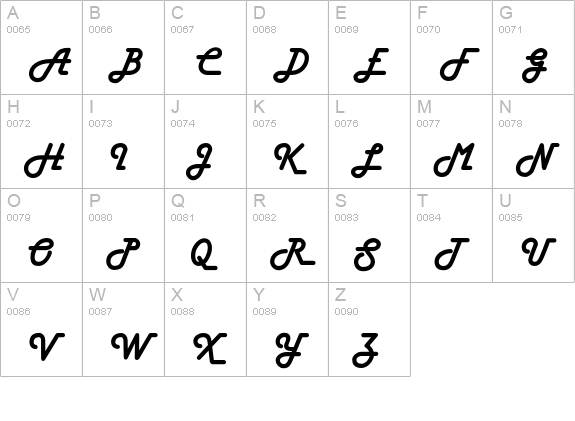
Flynn Font Details
Flynn font is a beautifully crafted typeface that exudes sophistication and elegance. Its sleek lines and modern design make it perfect for a wide range of projects, from branding to editorial design. The Flynn font is versatile and can be used for both headers and body text, adding a touch of refinement to any project. What sets Flynn font apart is that it is not only visually stunning but also free to download. This means that designers and creatives can easily access this high-quality font without any cost. You can find the Flynn font available for download at FontsMarket.com, where you can add this stylish typeface to your collection and elevate your designs to the next level. Don't miss out on the opportunity to enhance your projects with the Flynn font, available for free at FontsMarket.com.